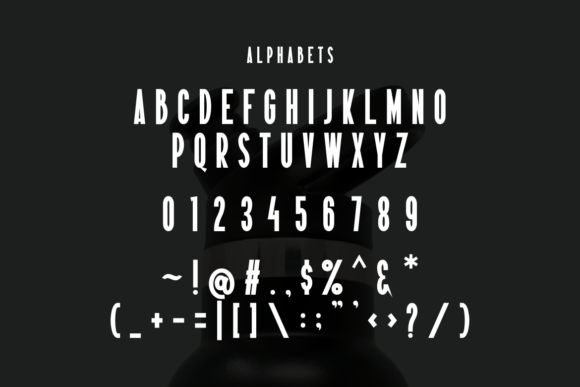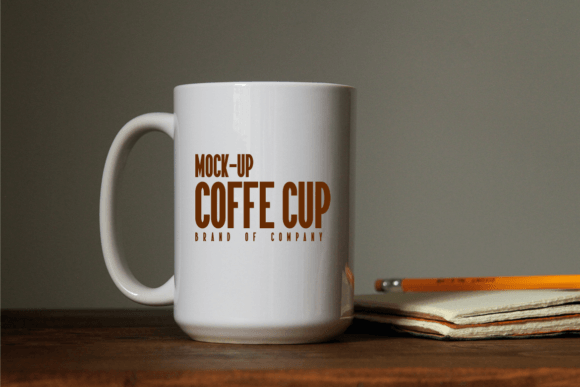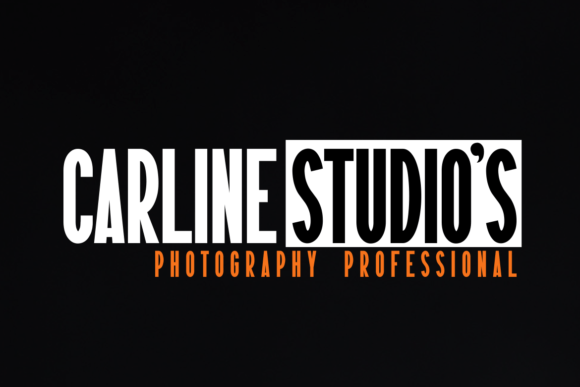
Introducing Dontawild Font: The Bold and Modern Choice for Company Names
In the world of typography, fonts play a crucial role in conveying the identity and personality of a brand. For designers and crafters, selecting the right font can make all the difference in creating a lasting impression. If you’re looking for a bold and modern font to write company names, look no further than Dontawild Font. In this article, we’ll explore the features and benefits of Dontawild Font, and why it’s an excellent choice for studios engaged in information technology or digital fields.
What is Dontawild Font?
Dontawild Font is a bold and striking font designed to make a statement. Its unique and modern style makes it perfect for writing company names, logos, and taglines. The font’s bold nature ensures that it stands out from the crowd, grabbing the attention of your audience and leaving a lasting impression.
Key Features of Dontawild Font
- Bold and Modern Style: Dontawild Font boasts a bold and modern style that’s perfect for companies looking to make a statement.
- Unique Typography: The font’s unique typography ensures that your company name or logo stands out from the crowd.
- Easy to Read: Despite its bold nature, Dontawild Font is easy to read, making it perfect for use in a variety of applications.
- Versatile: Dontawild Font is versatile and can be used in a range of projects, from logos and branding to headlines and titles.
Why Use Dontawild Font?
So, why should you use Dontawild Font for your next project? Here are just a few reasons:
- Make a Statement: Dontawild Font is designed to make a statement. Its bold and modern style ensures that your company name or logo stands out from the crowd.
- Convey Confidence: The font’s confident and bold nature conveys a sense of confidence and professionalism, perfect for companies looking to establish a strong brand identity.
- Perfect for Digital Fields: Dontawild Font is particularly well-suited for studios engaged in information technology or digital fields. Its modern style and bold nature make it perfect for companies looking to establish a strong online presence.
How to Use Dontawild Font
Using Dontawild Font is easy. Here are a few tips to get you started:
- Use it for Headlines and Titles: Dontawild Font is perfect for use in headlines and titles. Its bold nature ensures that it stands out from the crowd, grabbing the attention of your audience.
- Pair it with Other Fonts: Dontawild Font pairs well with other fonts, making it easy to create a unique and visually appealing typography scheme.
- Experiment with Different Sizes: Dontawild Font looks great in a range of sizes. Experiment with different sizes to find the one that works best for your project.
In conclusion, Dontawild Font is a bold and modern font that’s perfect for writing company names. Its unique typography, easy readability, and versatility make it an excellent choice for designers and crafters. Whether you’re working on a logo, branding project, or website, Dontawild Font is sure to make a statement. So why not add it to your projects today and enjoy the results?